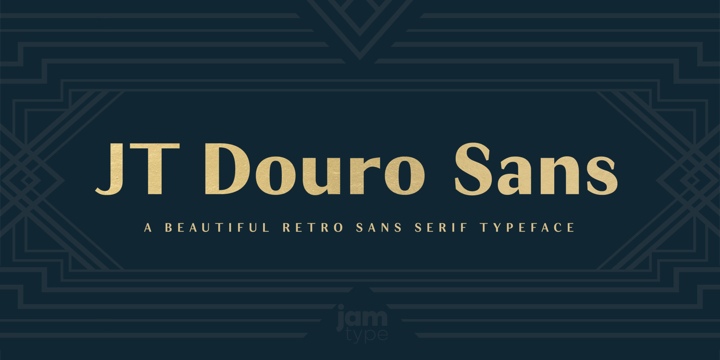
JT Douro Sans Font
JT Douro Sans Font is perfect for modern corporate branding, tech startup identities, contemporary website interfaces, minimalist product packaging, architectural signage, digital application designs, clean editorial layouts, and sophisticated marketing campaigns. This versatile typeface excels in applications where clarity and contemporary elegance are essential for creating professional and accessible brand communications.
What makes JT Douro Sans Font truly exciting is its perfect synthesis of humanist warmth and geometric precision. The font features clean, uncluttered letterforms with subtle organic curves that create a friendly yet professional appearance. Its carefully engineered proportions and consistent stroke weights ensure exceptional legibility across all sizes and media, while the refined character shapes demonstrate meticulous attention to typographic detail. The typeface's neutral yet distinctive personality allows it to adapt seamlessly to various brand contexts while maintaining its unique identity and visual appeal.
The JT Douro Sans Font family includes comprehensive weight range from Thin to Black, with corresponding italic versions that enhance its versatility. The font offers extensive OpenType capabilities including multiple figure styles, small capitals, contextual alternates, and broad multilingual character support. Additional stylistic sets and ligatures provide designers with creative flexibility for custom typography solutions and distinctive brand applications across diverse markets.
For designers seeking a reliable and contemporary sans-serif typeface, JT Douro Sans Font Free Download represents an outstanding choice that combines modern aesthetics with exceptional functionality. Whether you're working on digital interface designs, corporate identity systems, or editorial applications, this font family provides the typographic foundation necessary for creating clean and impactful communications. Its balanced character and excellent readability make it particularly effective for brands wanting to convey innovation, trustworthiness, and forward-thinking values. The font's versatility and comprehensive language support make it an essential tool for international brands requiring consistent typography across multiple platforms and cultural contexts, ensuring seamless brand expression in today's global marketplace.